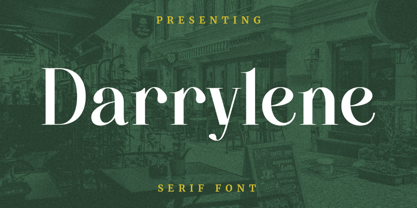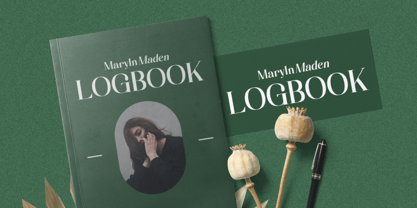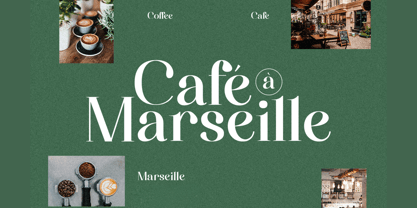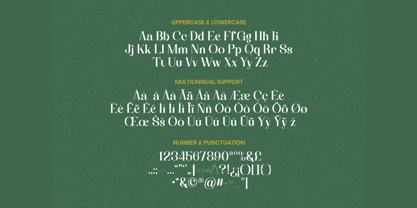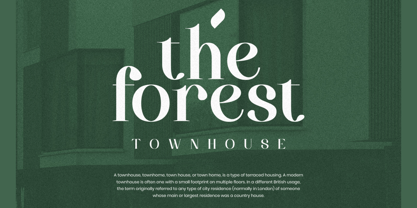
Darrylene
Die Schriftfamilie Darrylene wurde von Aulia Savira Putri entworfen und von Imoodev veröffentlicht. Darrylene enthält 1 Stile. Mehr über diese Familie
Elevate your designs with Darrylene, a serif font that blends timeless classicism with modern editorial flair. Sharp stems and graceful, flowing curves, Darrylene is designed to bring a touch of luxury and prestige to any project. Whether you are crafting a fashion logo, a magazine layout, or sophisticated wedding, this font provides a refined aesthetic that commands attention. Its unique terminals and elegant descenders give it a bespoke, hand crafted feel while maintaining perfect legibility. Darrylene is an ideal choice for a wide range of design requirements. Specifically crafted to strengthen luxury branding, logos, it brings an exclusive feel to editorial design, magazines and adds an elegant, romantic touch to wedding invitations. Furthermore, its aesthetic character is perfectly suited for enhancing social media quotes and lifestyle graphics, providing a premium appeal to your packaging and product labels.